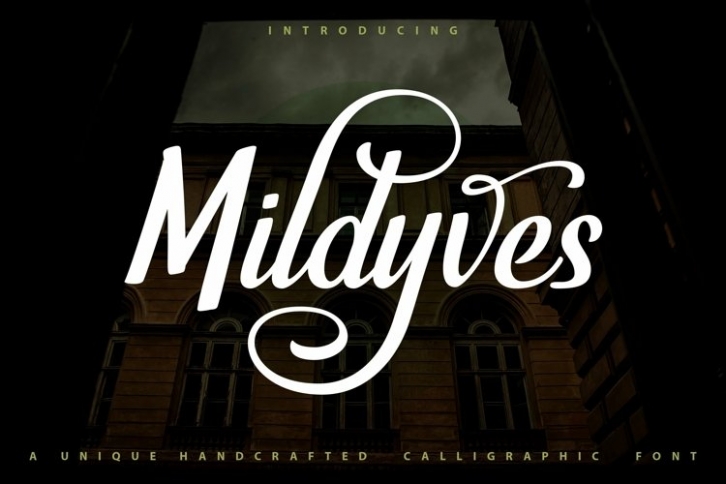
Web Mildyves is a beautiful font that was designed by plusstore. It's a great choice for designers and creatives who need such a font. It was released on July 5, 2021 and the file size is 18.86 MB. Web Mildyves may give a more youthful, expressive and casual look to your project. It is a very beautiful, refined, elegant, and high-quality font.